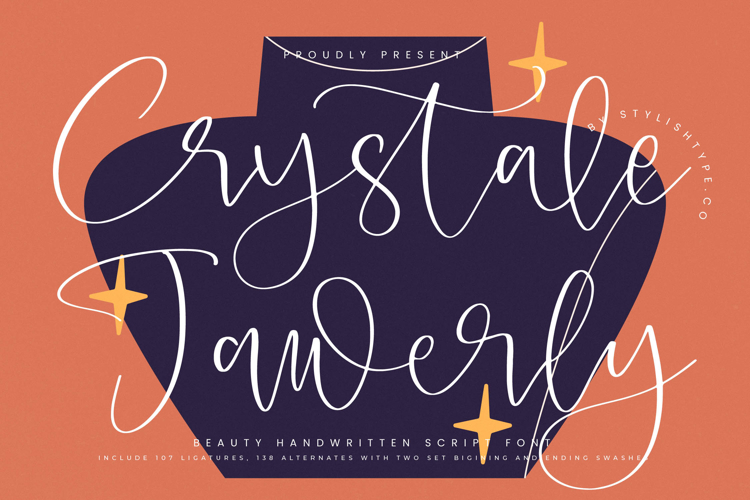
Crystale Jawerly - Beauty Handwritten Script Font
Elevate your creative vision with the timeless sophistication of Crystale Jawerly - Beauty Handwritten Script Font. This elegant calligraphy typeface captures the essence of high-end aesthetics through its organic flow and graceful stroke transitions. Designed to mimic fluid, natural handwriting, Crystale Jawerly - Beauty Handwritten Script Font offers a refined aesthetic that brings, artisanal touch to any digital or print canvas, ensuring your message is delivered with unrivaled grace.
Experience unparalleled functionality tailored for the modern designer through an extensive set of dynamic ligatures and expressive swashes. With its extensive multilingual support, Crystale Jawerly - Beauty Handwritten Script Font adapts seamlessly across global markets, making it incredibly versatile for international projects. This premium script ensures that your visual identity remains consistent and impactful, providing over a hundred stylistic alternates to help you create truly bespoke compositions.
Transform your brand identity with a touch of artisanal luxury that is perfect for high-end packaging, luxury branding, and boutique logos. The delicate, feminine nature of Crystale Jawerly - Beauty Handwritten Script Font makes it an ideal choice for jewelry marketing, wedding invitations, and editorial design. Whether applied to social media graphics or premium signage, this font serves as the ultimate tool for projects requiring a sophisticated and visual allure.